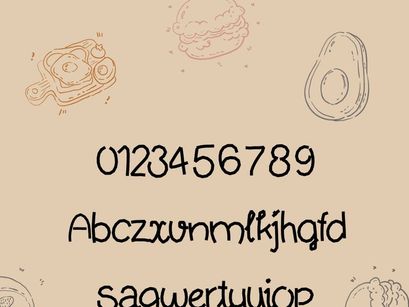
RawStroke – Handcrafted Scribble Font
RawStroke – Handcrafted Scribble Font is a bold, hand-drawn sketch font that captures the raw energy of quick pencil strokes and creative drafts. Inspired by rough sketches and spontaneous linework, this typeface brings a natural, imperfect charm that makes your designs feel more human and expressive.
Perfect for branding, posters, social media graphics, packaging, and creative projects that need a unique handcrafted touch. RawStroke stands out with its textured strokes and dynamic character, making it ideal for eye-catching headlines and artistic compositions.
Features:
– Uppercase & lowercase letters
– Numbers & punctuation
– English, Vietnamese support
– Unique hand-drawn style